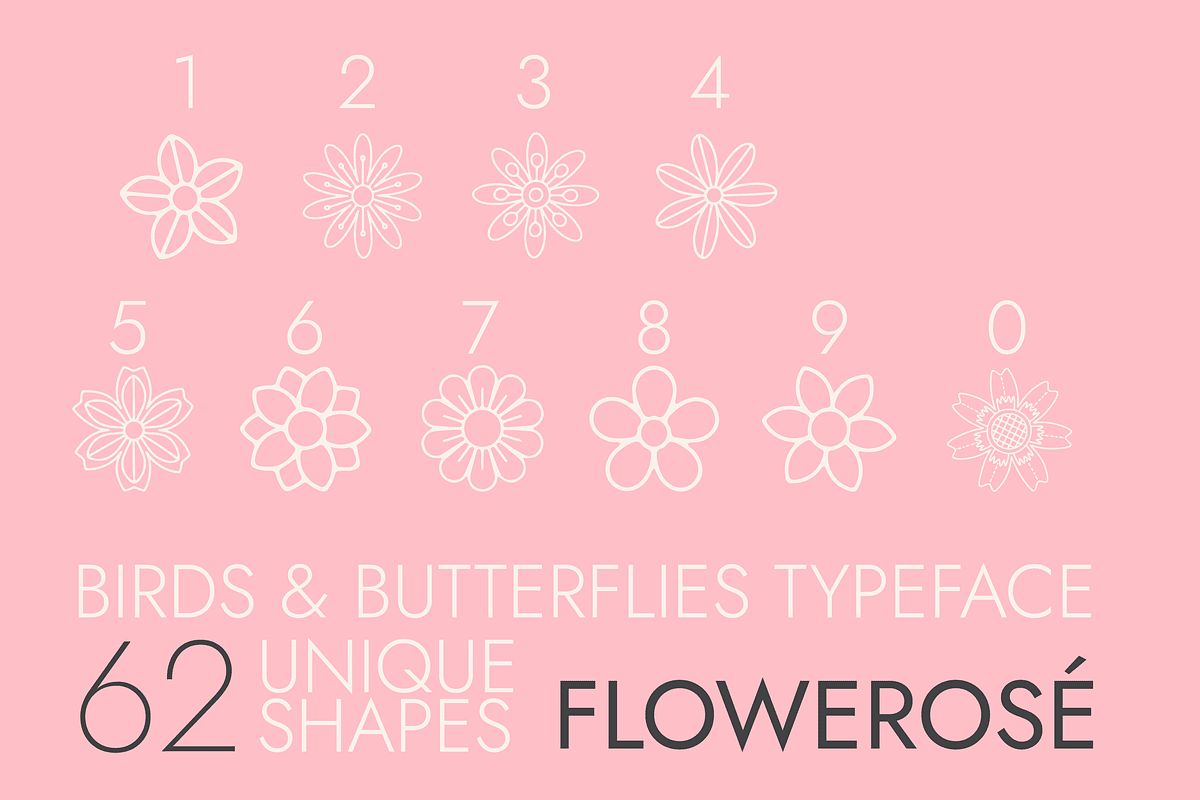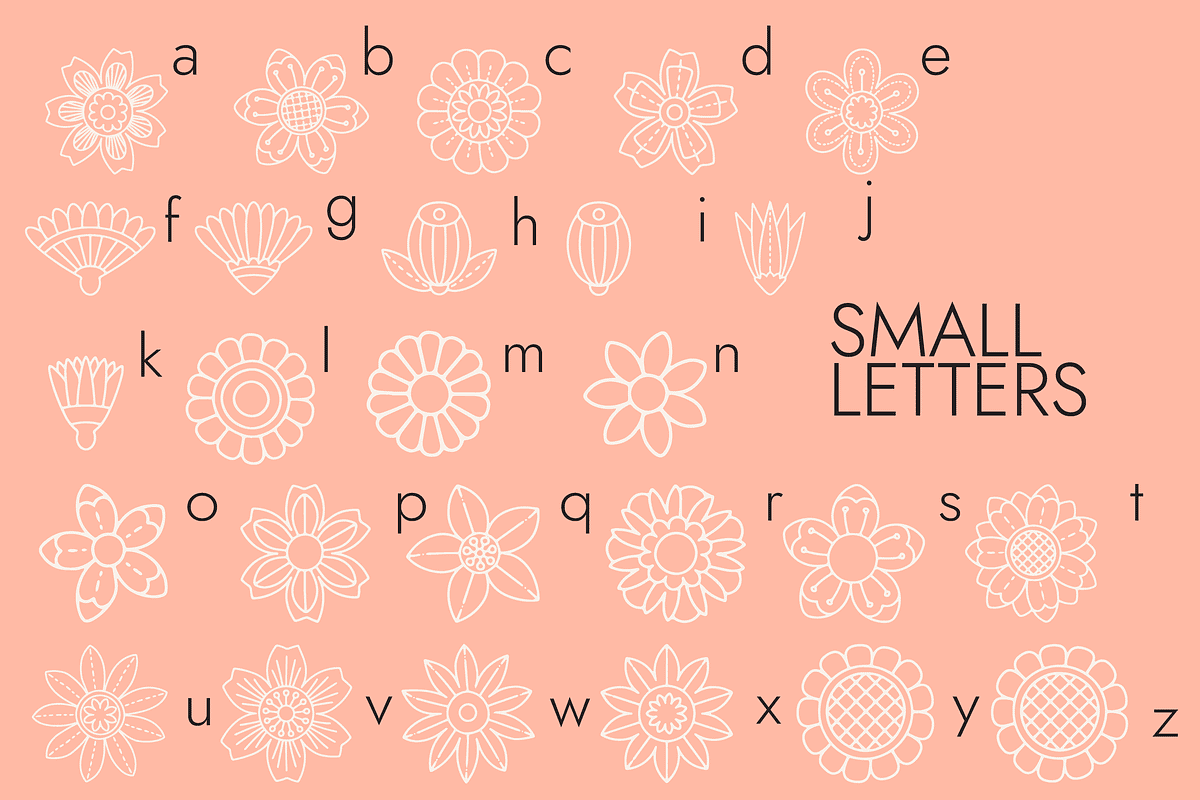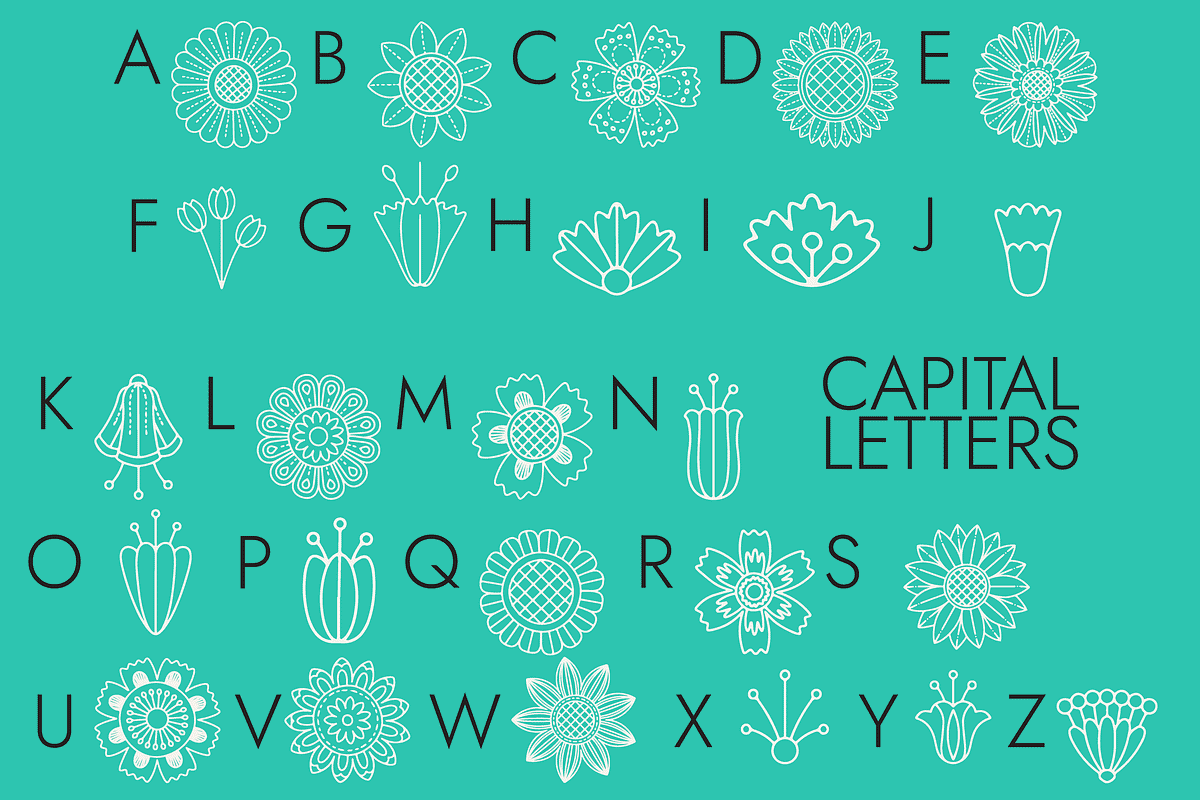
Flowerose Dingbats Font
Flowerose is an amazing and unique dingbats font. It will add a fresh and unique accent to your creative projects with its multiple flowers and roses. Create unlimited designs, patterns, social media posts, flyers, or anything else!